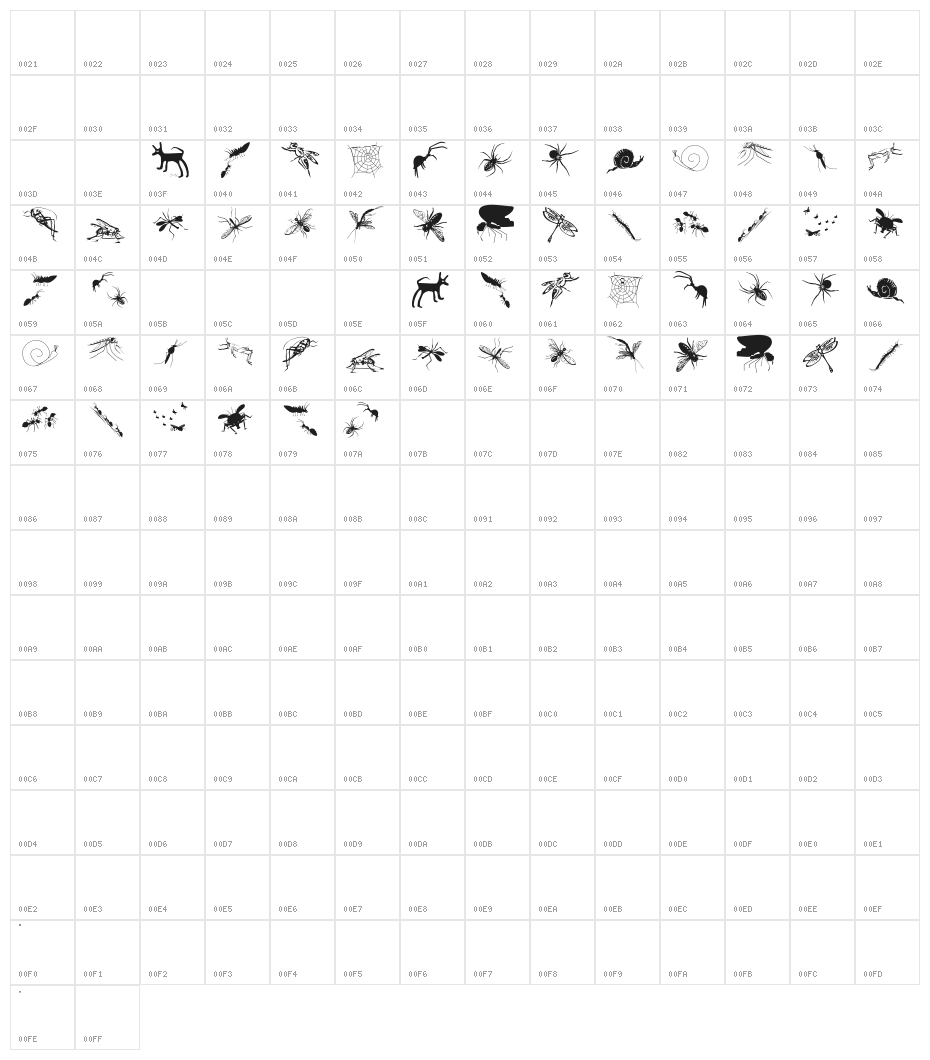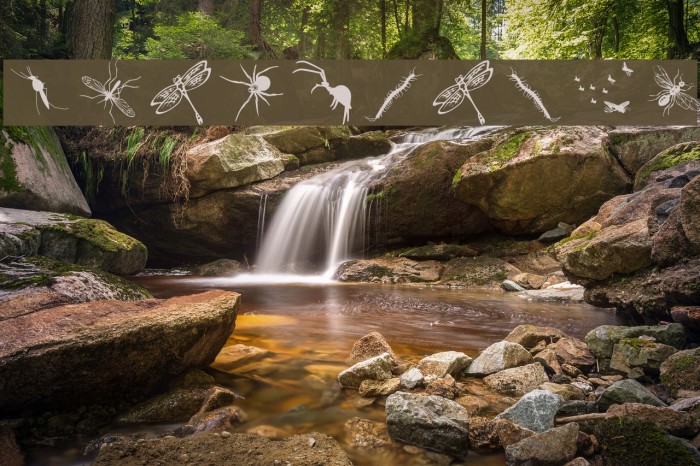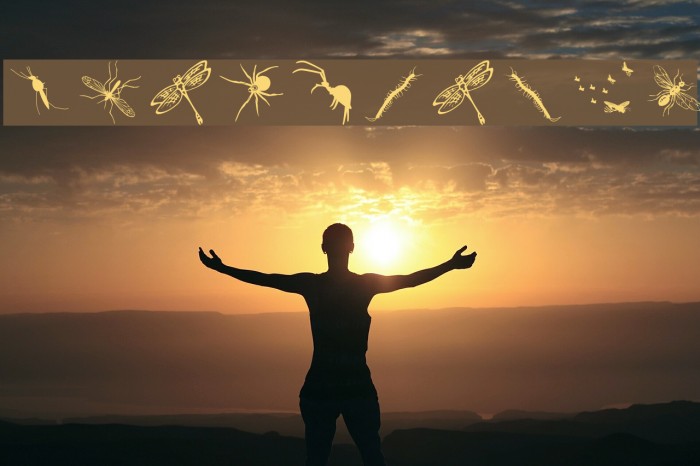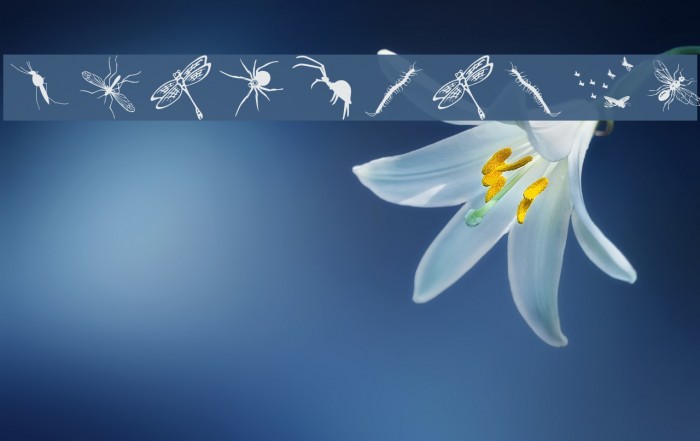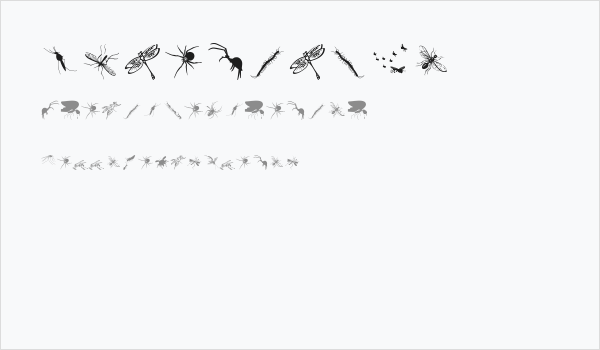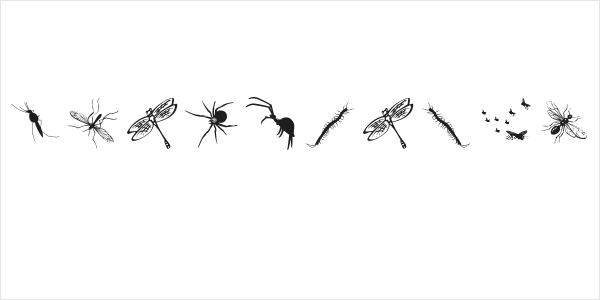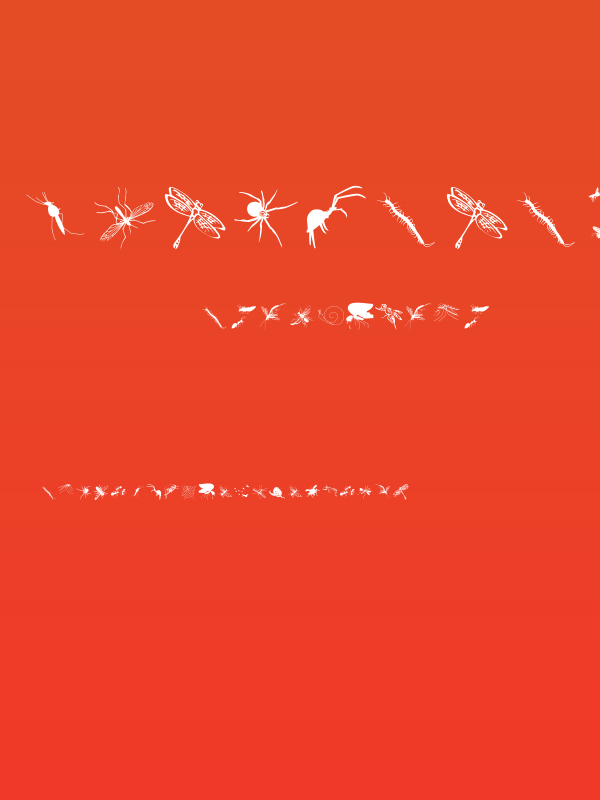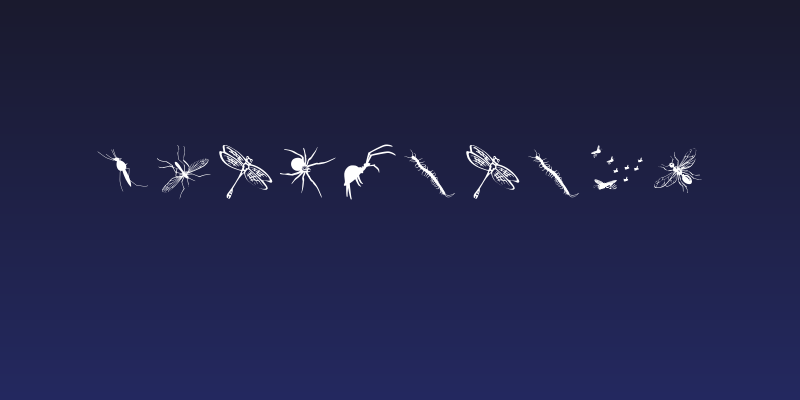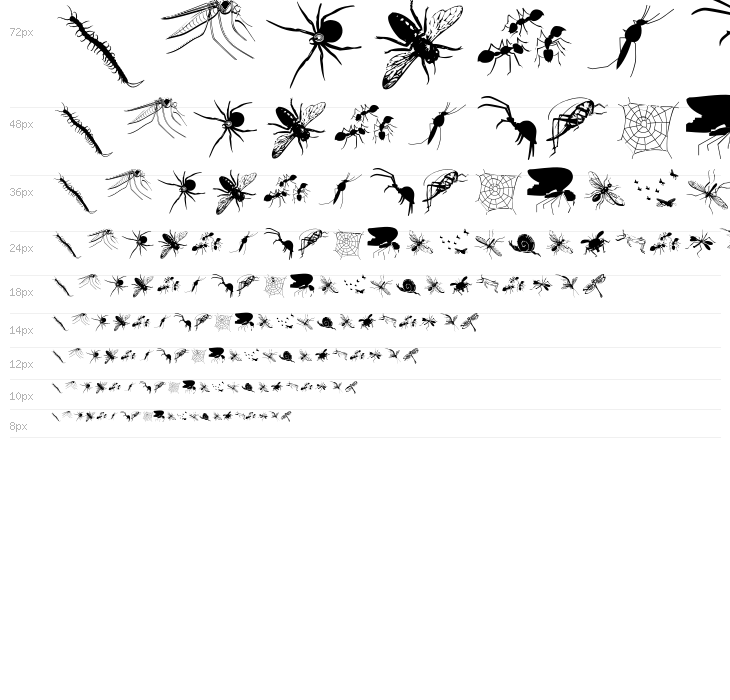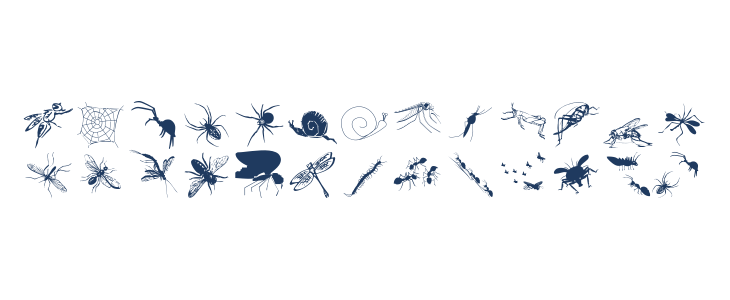
A decorative dingbat font featuring detailed black-and-white silhouettes and line drawings of various insects, spiders, snails, and related creatures, each glyph representing a different bug or insect scene.
| Overall Style | Decorative, Nature-inspired |
| Use Case | Illustrative accents, icons, educational graphics, themed crafts |
| Proposed Projects | Nature-themed posters, educational materials, children's books, scrapbooking, invitations, and decorative borders. |